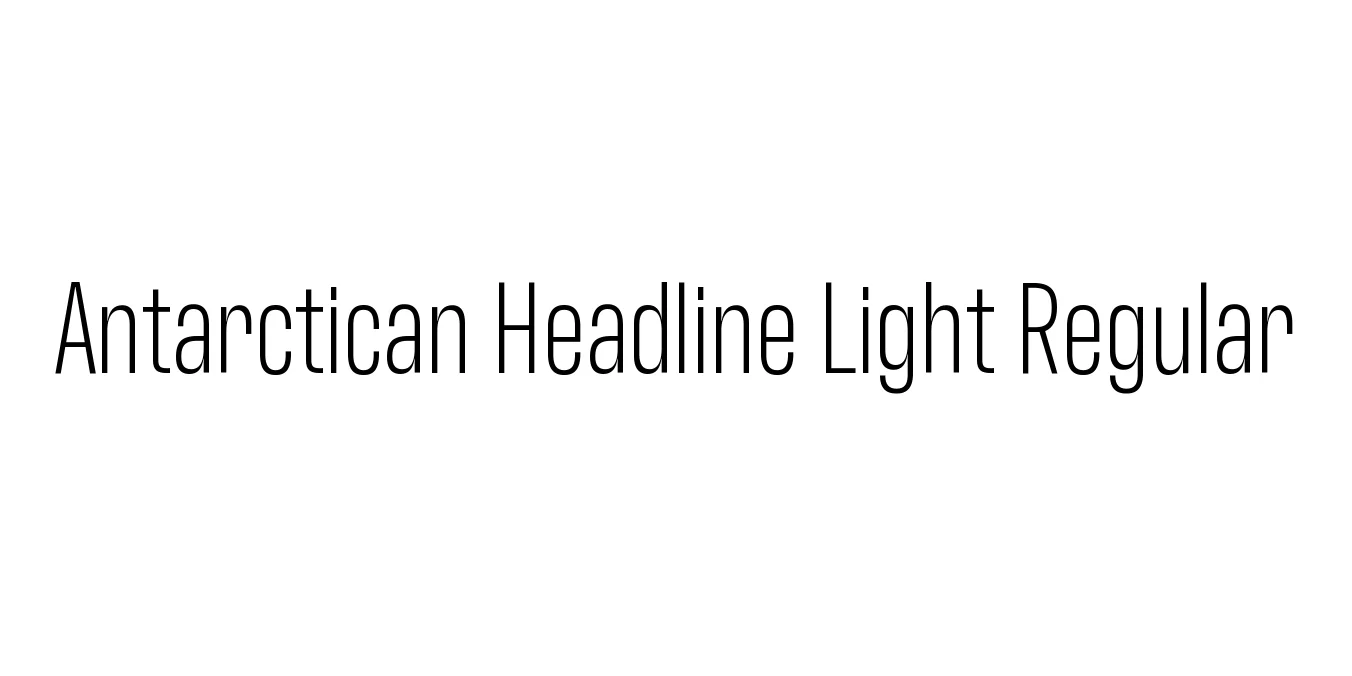
Antarctican Headline Light Regular
Designed by Gareth Hague
Antarctican Headline Light Regular is a sophisticated sans-serif typeface designed by Gareth Hague and released through the Alias foundry. This font is part of a larger family characterized by its disciplined, square-sided architecture and compact proportions, which were inspired by the utilitarian aesthetics of technical and industrial signage. The Light weight specifically brings a sense of airy elegance and precision to the robust structural foundation of the Antarctican series.
As a display-oriented typeface, Antarctican Headline Light Regular excels in environments where clarity and modernism are paramount. Its clean, geometric lines make it a favorite for editorial designers looking to create high-impact layouts without the weight of traditional bold fonts. It effectively bridges the gap between mid-century Swiss design principles and contemporary digital aesthetics, making it a versatile tool for high-end branding and structural graphic design.
Antarctican Headline Light Regular Best Uses
Excellent for sophisticated magazine headers and clean typographic spreads.
Ideal for tech-focused logos and minimalist corporate identity systems.
Effective for high-impact posters and outdoor signage requiring a modern look.
Provides a clean and legible experience for web headers and app UI elements.